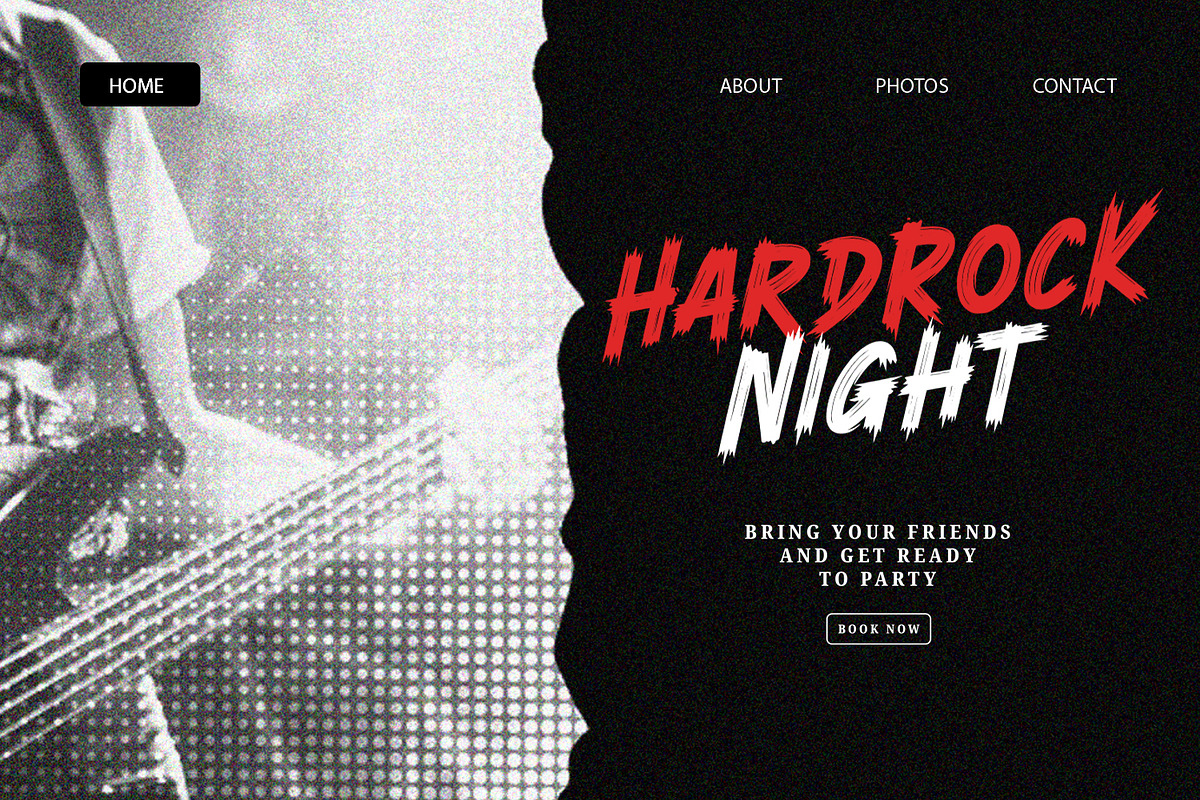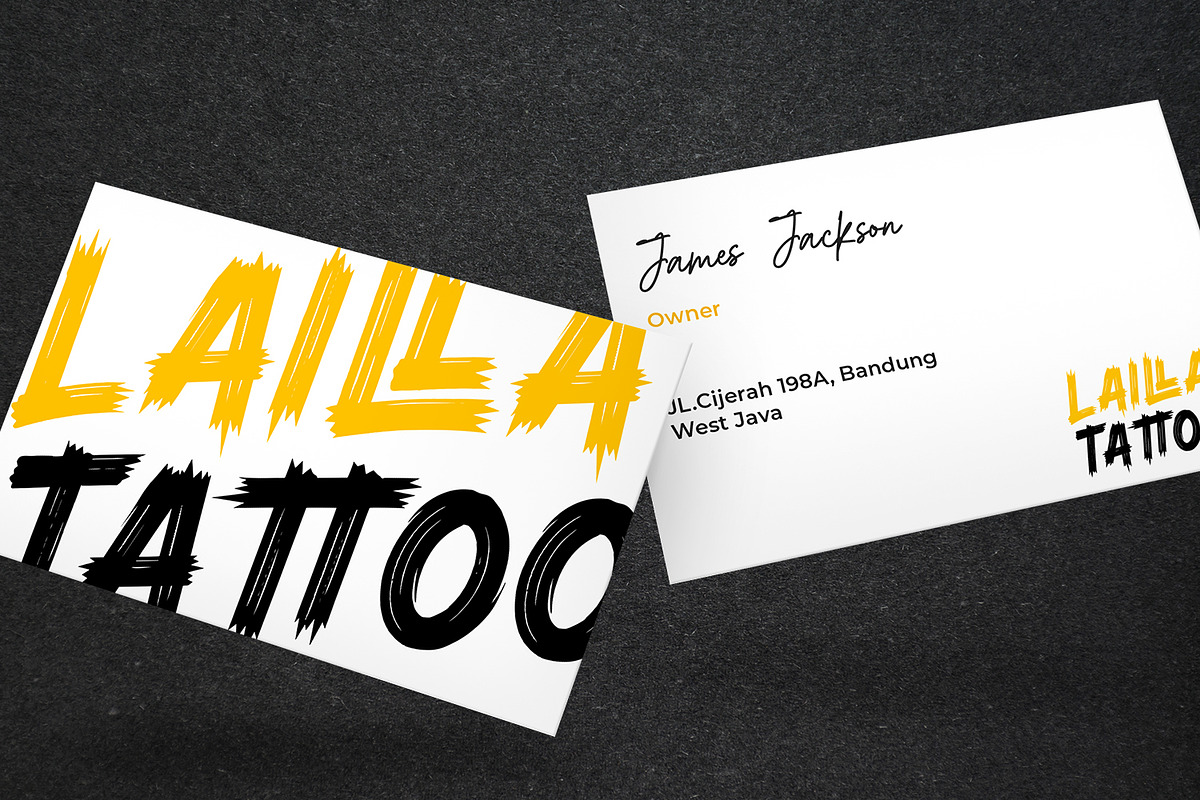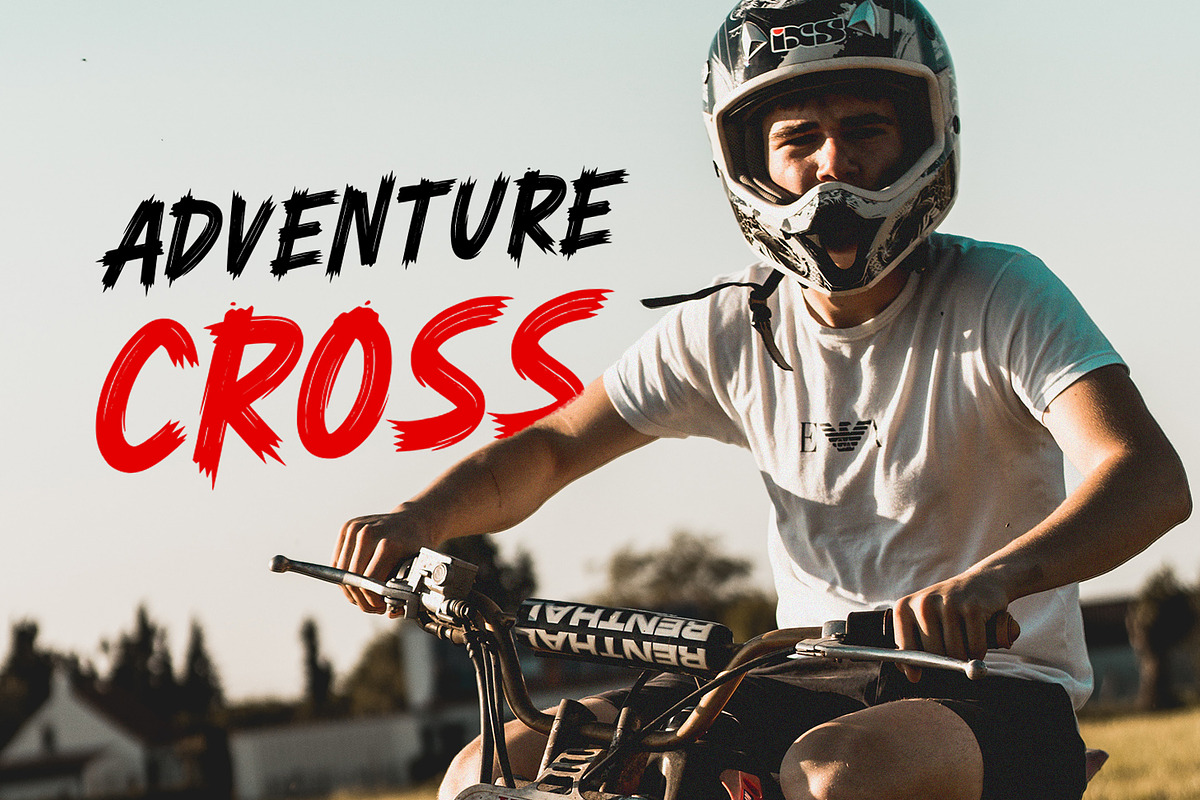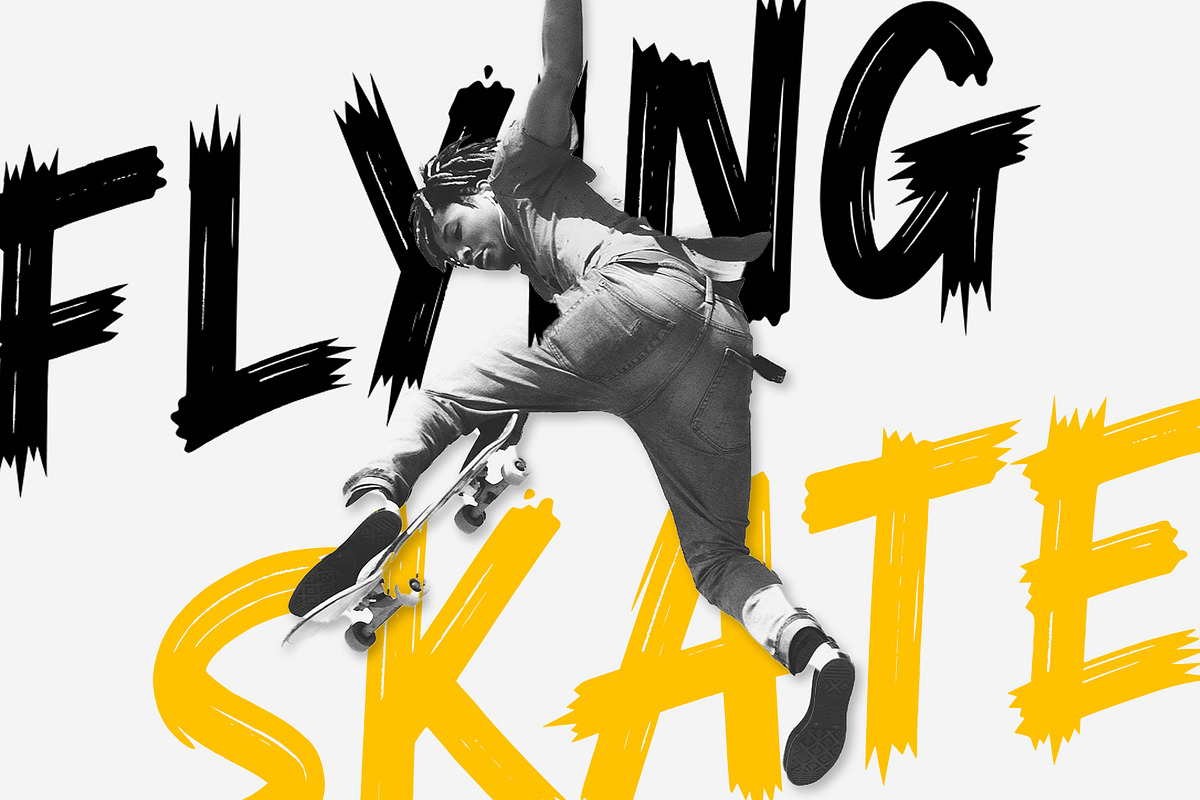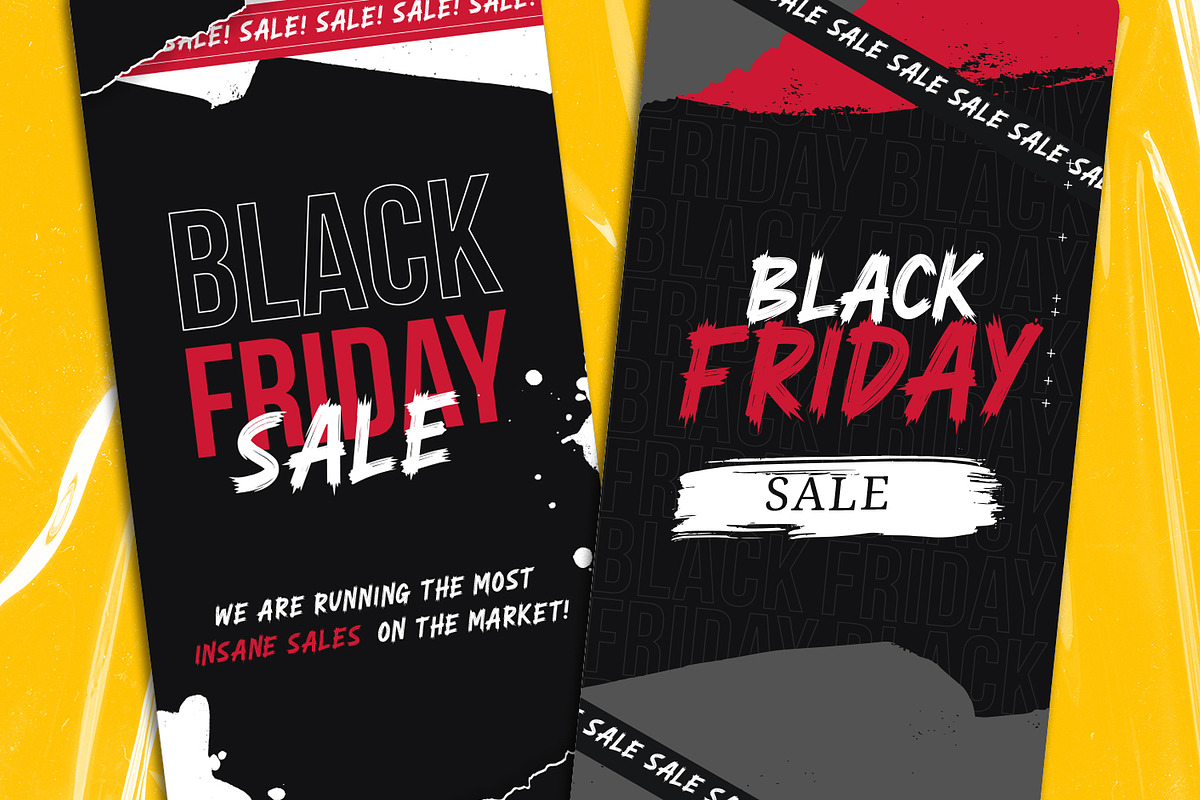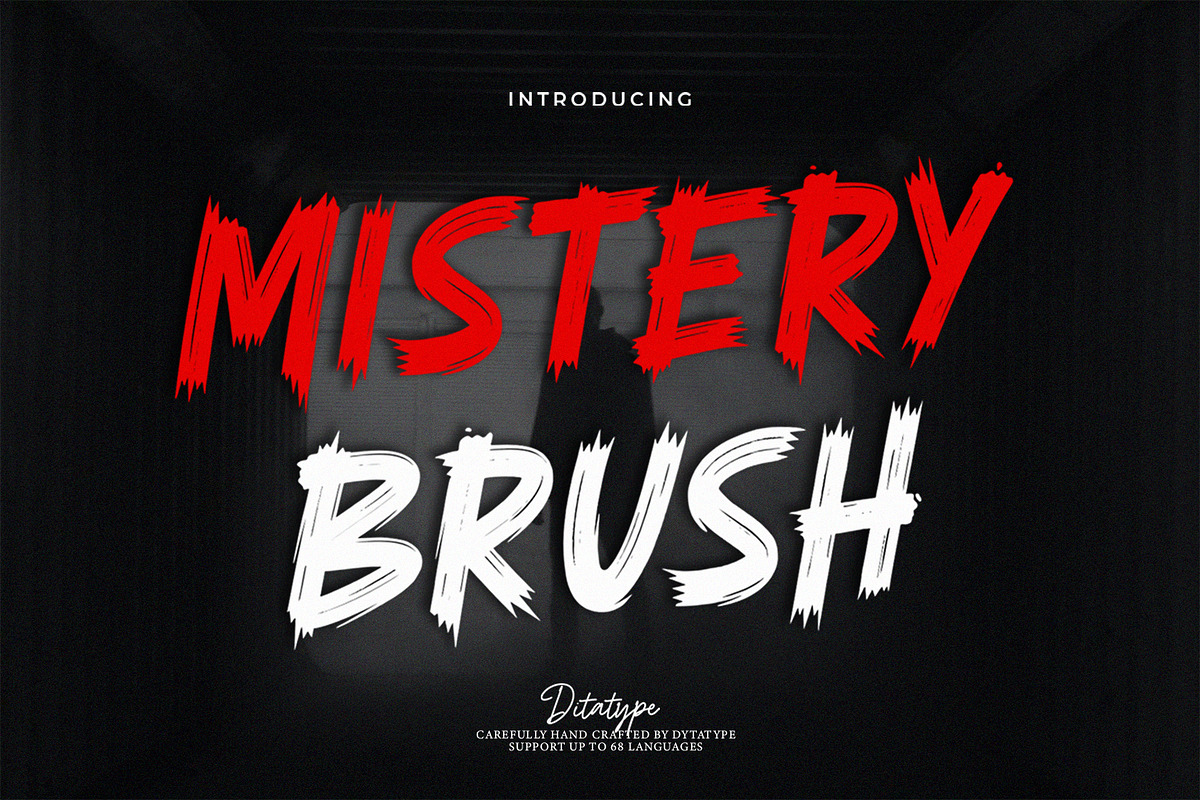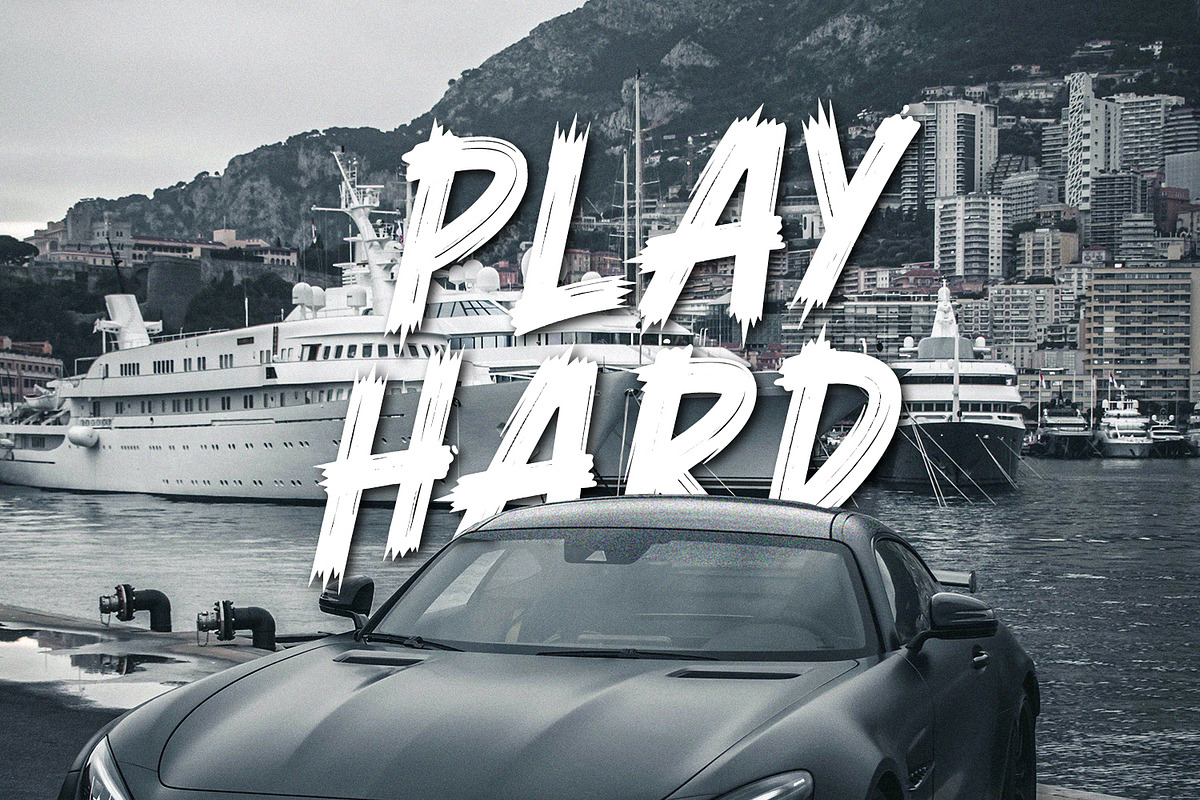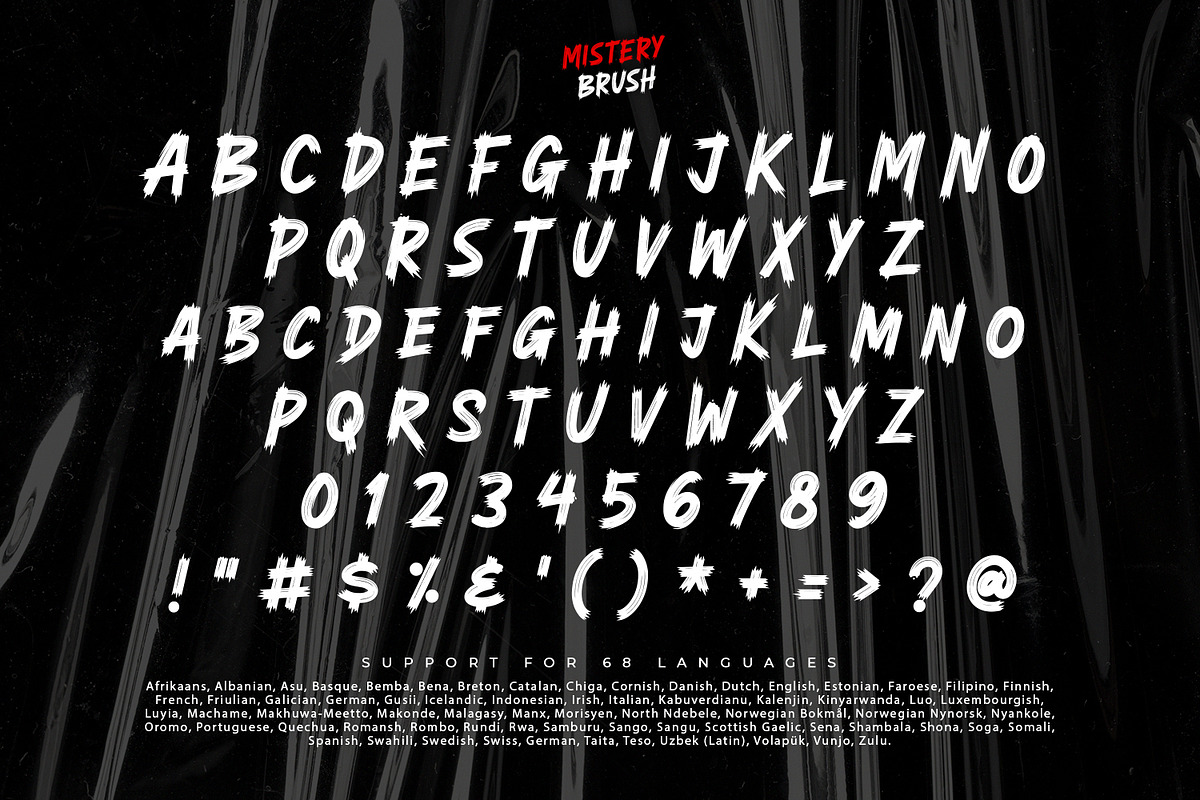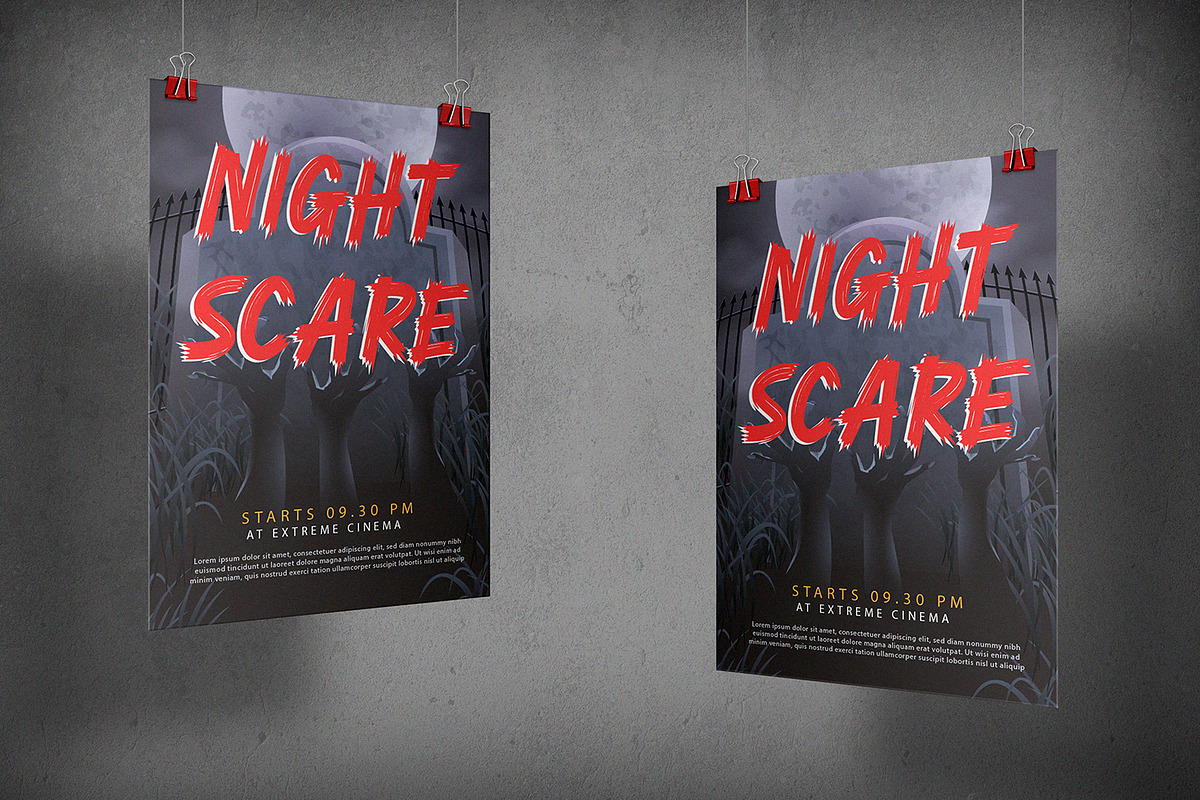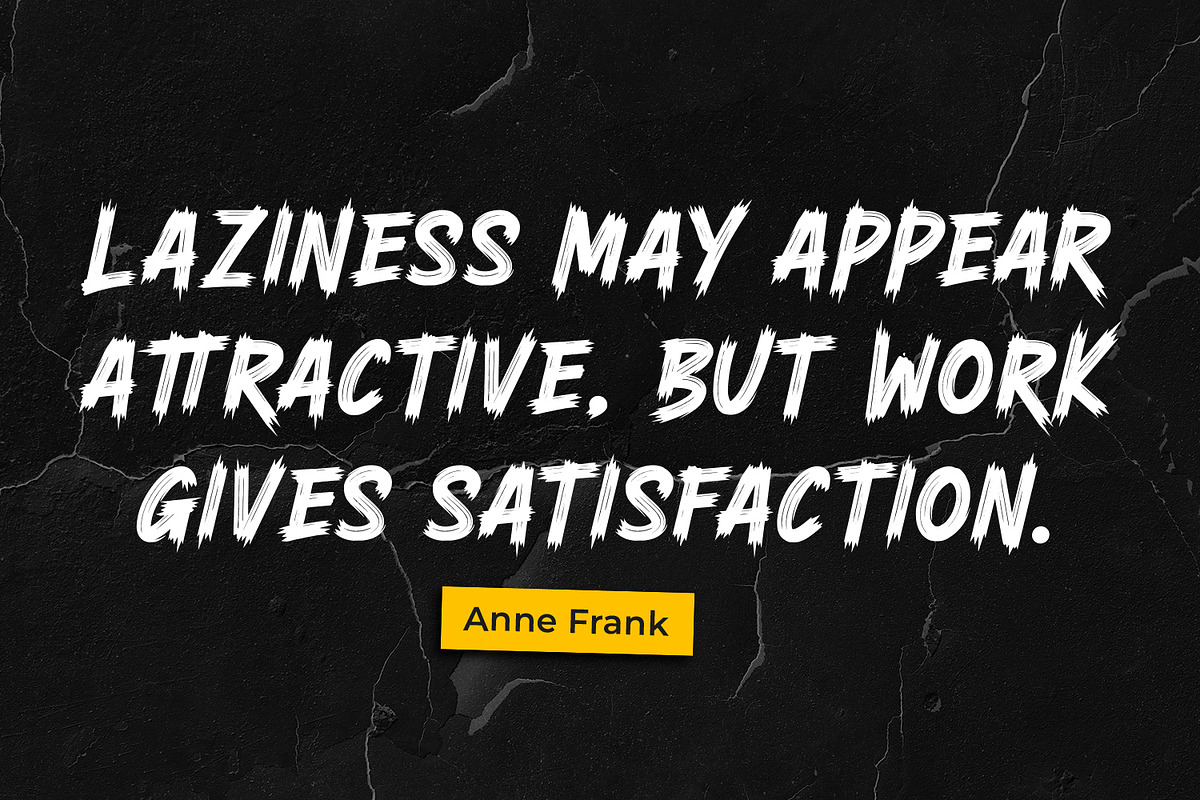
Mistery Brush
Mistery Brush is a captivating script font that exudes an air of intrigue and enigma. Designed in large letters with a thick weight, this typeface commands attention and makes a powerful statement. Each letter is meticulously crafted with brush-like strokes, adding a touch of handcrafted artistry to the font. The brush details in Mystery Brush lend the font an organic and dynamic feel, as if the letters were painted with the strokes of an enigmatic artist. These artistic details add depth and character, making every word a work of art. For the best legibility you can use this font in the bigger text sizes. Enjoy the available features here.
Mistery Brush fits in headlines, logos, movie posters, flyers, invitations, greeting cards, branding materials, print media, editorial layouts, headers, and many more. Find out more ways to use this font by taking a look at the font preview.